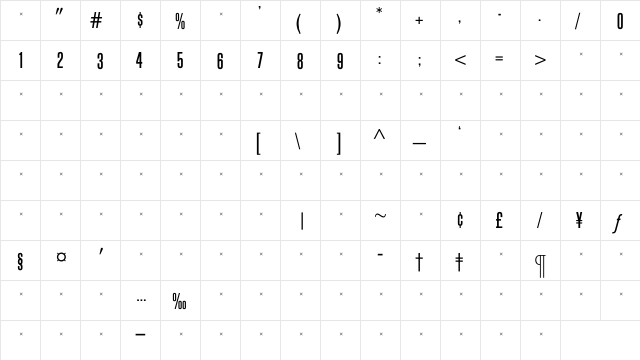
BlockGothicMediumExtraCondTab Regular Font Preview
Design Context for BlockGothicMediumExtraCondTab Typeface
BlockGothicMediumExtraCondTab takes a clean, functional approach — its unadorned letterforms prioritise legibility and work reliably across screen and print environments. Its narrow stance lets it pack a punch even in space-constrained designs.
Font Pairing: Works well alongside a characterful serif or display font that can carry the expressive load while BlockGothicMediumExtraCondTab handles the functional copy.
Pro Tip: Use BlockGothicMediumExtraCondTab tightly set in headlines and banners — its condensed proportions make it ideal for maximum impact in minimum horizontal space.